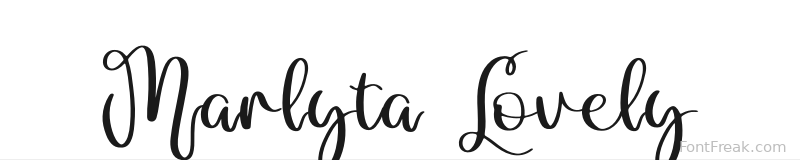
Marlyta Lovely
Marlyta Lovely by Perspectype Studio is a beautifully crafted script font that captures the essence of elegance and charm. Released in 2021, this font showcases a delightful combination of flowing letterforms and playful curves that evoke a sense of warmth and personality. The strokes vary in weight, creating a dynamic contrast that enhances its visual appeal while maintaining readability. The spacing between characters is thoughtfully designed, allowing for harmonious text flow, making it perfect for projects that require a touch of finesse.
This font is particularly well-suited for a variety of uses. Its whimsical style makes it an excellent choice for wedding invitations, where a romantic and sophisticated touch is essential. Additionally, Marlyta Lovely can elevate the aesthetic of greeting cards, adding a personal and inviting feel. It shines on restaurant menus, where the handwritten effect can convey a cozy, welcoming atmosphere. Furthermore, for content creators looking to add flair to their social media graphics or brand materials, this font provides a unique voice that stands out in a crowded digital space.
Targeted primarily at graphic designers, small business owners, and content creators, Marlyta Lovely offers a versatile solution for anyone seeking to infuse their projects with character. The font's free license encourages creativity and accessibility, making it an appealing option for those on a budget.
What truly sets Marlyta Lovely apart is its ability to blend elegance with a casual, friendly vibe, making it suitable for both formal and informal applications. Whether you’re designing a heartfelt invitation or a trendy social media post, the Marlyta Lovely font free download is a valuable addition to any designer's toolkit, ensuring your work leaves a lasting impression.